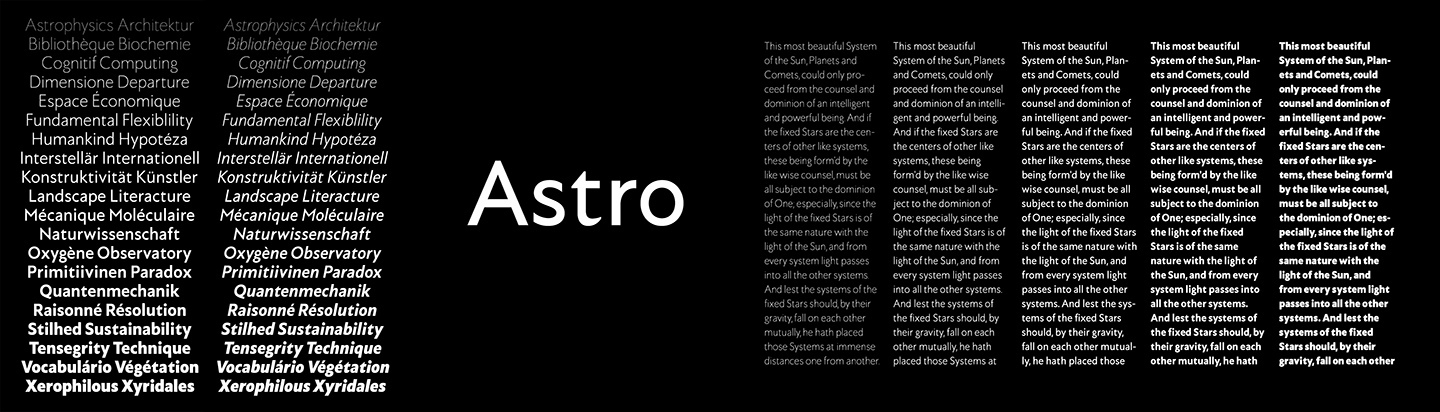
Astro Font
Astro Font is perfect for space exploration campaigns, astronomical research publications, planetarium presentations, science fiction movie titles, NASA communication materials, space technology branding, cosmic education programs, astronomy club materials, futuristic tech startups, and stellar scientific communications.
What makes Astro Font so exciting is its spectacular embodiment of cosmic wonder and space exploration that captures the infinite mystery of the universe and the pioneering spirit of astronomical discovery through cosmically inspired typography. This celestially crafted typeface features stellar letterforms with galactic proportions and space-influenced character variations that immediately convey exploration, wonder, and the boundless potential of cosmic discovery. The font's astronomical construction and space-age aesthetic create an instant sense of scientific curiosity and cosmic adventure, making it ideal for projects that need to communicate space exploration, scientific discovery, and the life-expanding power of astronomical understanding to audiences seeking authentic cosmic experiences and meaningful connections to the universe.
The Astro Font family typically includes multiple stellar weights and cosmic styles, often featuring light through bold variations along with dynamically flowing italic versions and space-optimized alternatives. Space-themed font collections frequently offer additional astronomical elements such as star symbols, planetary ornaments, and cosmic decorations that enhance the celestial aesthetic and provide designers with comprehensive tools for creating genuinely astronomical and scientifically inspiring communications.
Astro Font Free Download offers designers an exceptional resource for creating cosmically authentic and astronomically compelling designs. Whether you're developing materials for space agencies, crafting educational content for astronomy programs, or designing communications for science museums that celebrate space exploration and cosmic discovery, this font delivers the stellar presence that space enthusiasts and scientifically minded audiences appreciate and find absolutely fascinating.
The cosmic nature of Astro Font makes it particularly effective for targeting demographics that value scientific exploration and space discovery in their educational and recreational interests. Science educators and space industry professionals will find this font especially valuable for materials that must establish immediate astronomical credibility and connect with audiences seeking authentic space experiences and meaningful cosmic exploration.
What sets Astro Font apart is its ability to convey cosmic wonder while maintaining the scientific precision necessary for effective educational and research communication. This balanced characteristic makes it suitable for both serious scientific applications and inspiring educational contexts where projecting astronomical expertise and maintaining universal appeal must work together harmoniously.
Professional designers recognize that Astro Font brings invaluable space credibility to projects across industries including aerospace, scientific education, space technology, and astronomical research. Its cosmic character and stellar appeal make it essential for organizations whose mission centers on advancing space exploration, promoting scientific discovery, and creating meaningful connections between human curiosity and the infinite possibilities of cosmic understanding.
The systematically crafted cosmic authenticity of Astro Font ensures consistent astronomical messaging across all space-focused communication applications while honoring the fundamental importance of scientific accuracy and cosmic wonder in contemporary space typography.